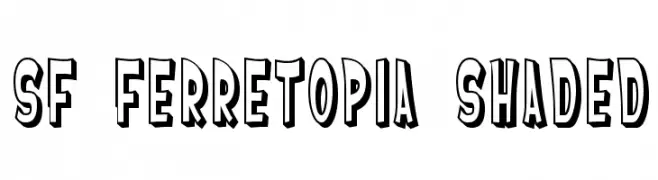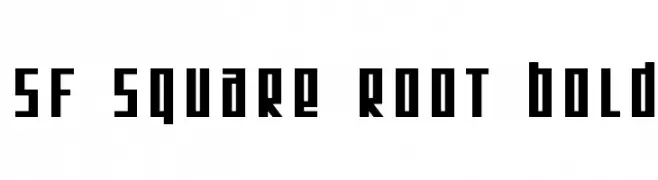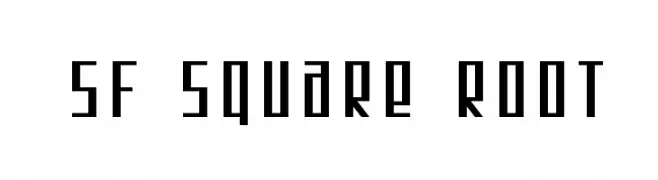
A bold, 3D font with strong shadow effects for impactful designs.
A bold, oblique font with a dynamic and energetic style.
A bold, oblique font with a playful, three-dimensional shadow effect.
A playful and bold font with exaggerated curves and a whimsical style.
A modern, oblique font with a geometric and dynamic style.
A bold, geometric font with a modern, square-like design.
A bold, geometric oblique font with a shaded 3D effect.
A geometric, angular font with a modern and technical aesthetic.
A geometric, modern font with a square-like structure and sharp angles.
A modern, geometric font with an oblique slant and sharp angles.